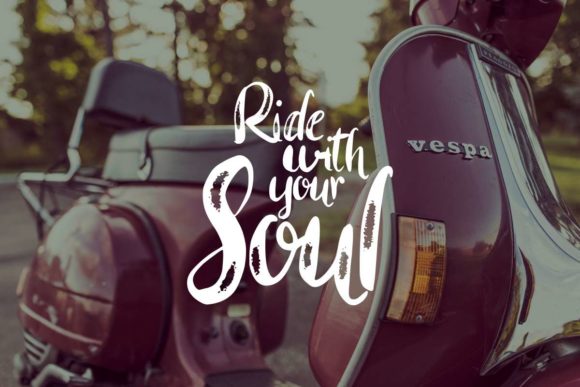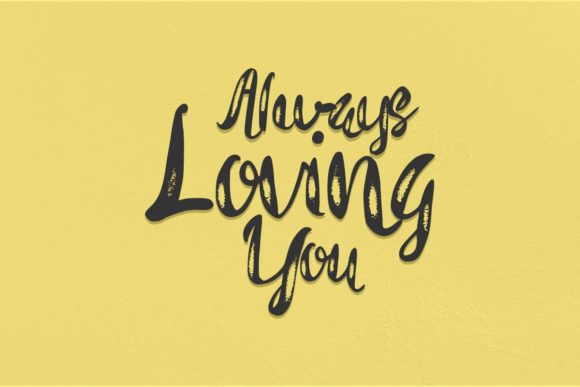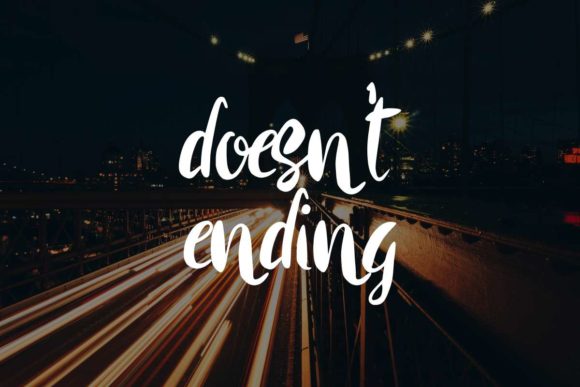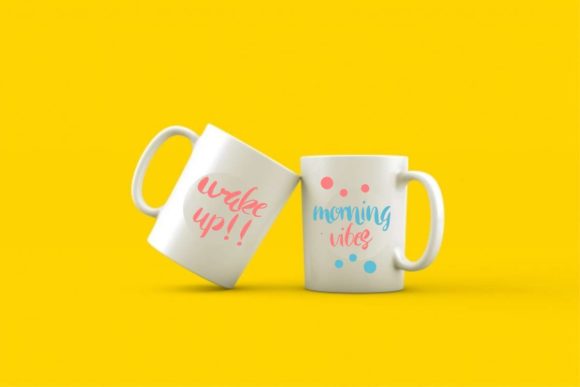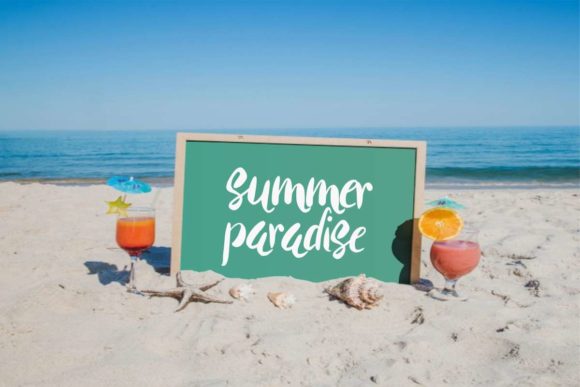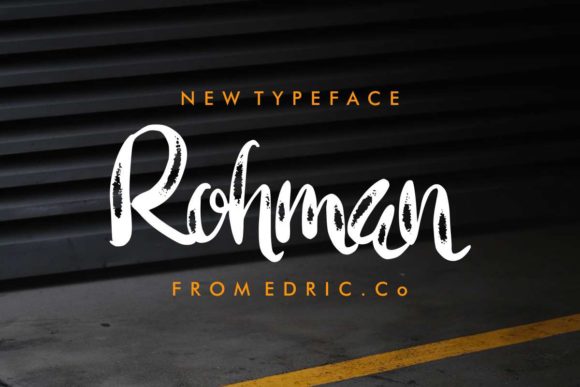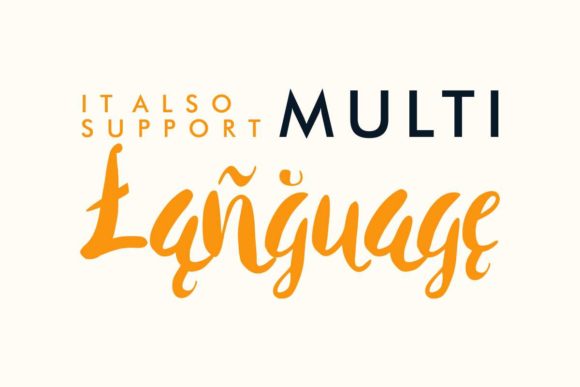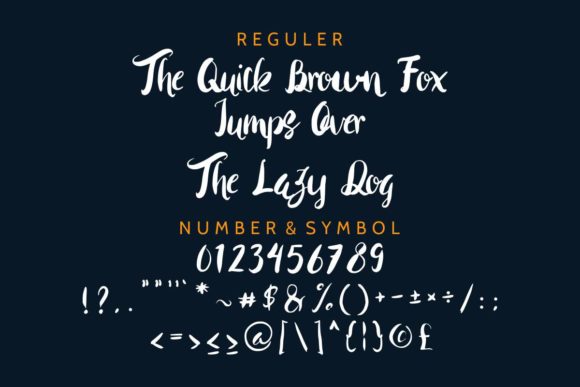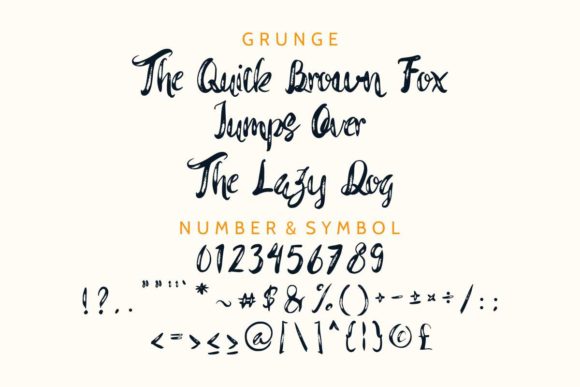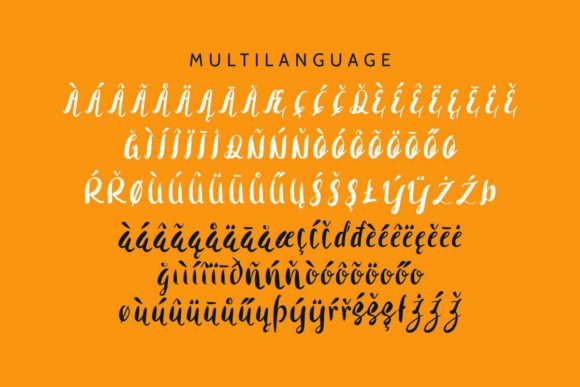
Rohman Font
About Rohman Font
Rohman is a sweet and charming handwritten font with an incredibly bold vibe. Get inspired by its unique aesthetic, that will turn any design project into a true standout!